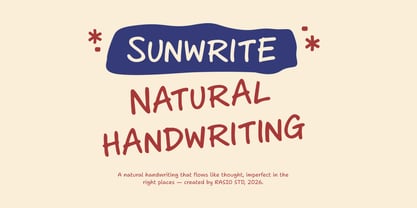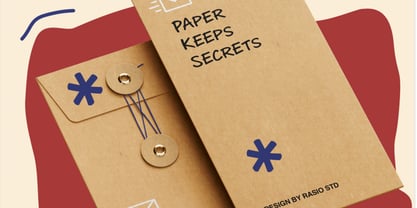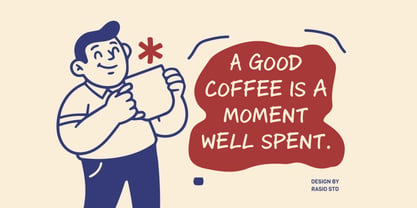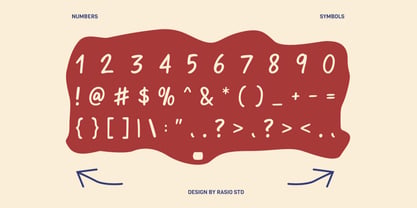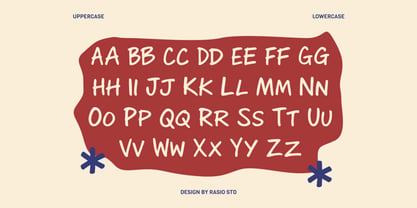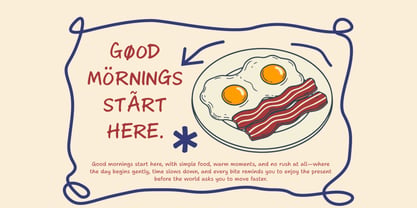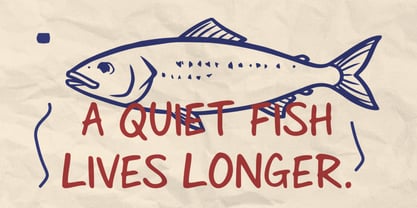
Sunwrite
The Sunwrite Font Family was designed by Fajar Indra and published by Rasio Studio. Sunwrite contains 1 styles. More about this family
Sunwrite is a natural handwriting typeface that captures the warmth, spontaneity, and charm of real pen strokes. The letterforms flow organically with soft curves, uneven rhythm, and subtle imperfections that create an authentic human touch. Includes uppercase, lowercase, numerals, punctuation, and multilingual support, making it versatile for expressive and friendly typography. Relevance and Use Cases is perfect for children’s books, café menus, food packaging, greeting cards, planners, social media quotes, handmade brands, lifestyle products, school materials, craft projects, stickers, posters, and any design that needs a warm, friendly, and personal handwritten character.